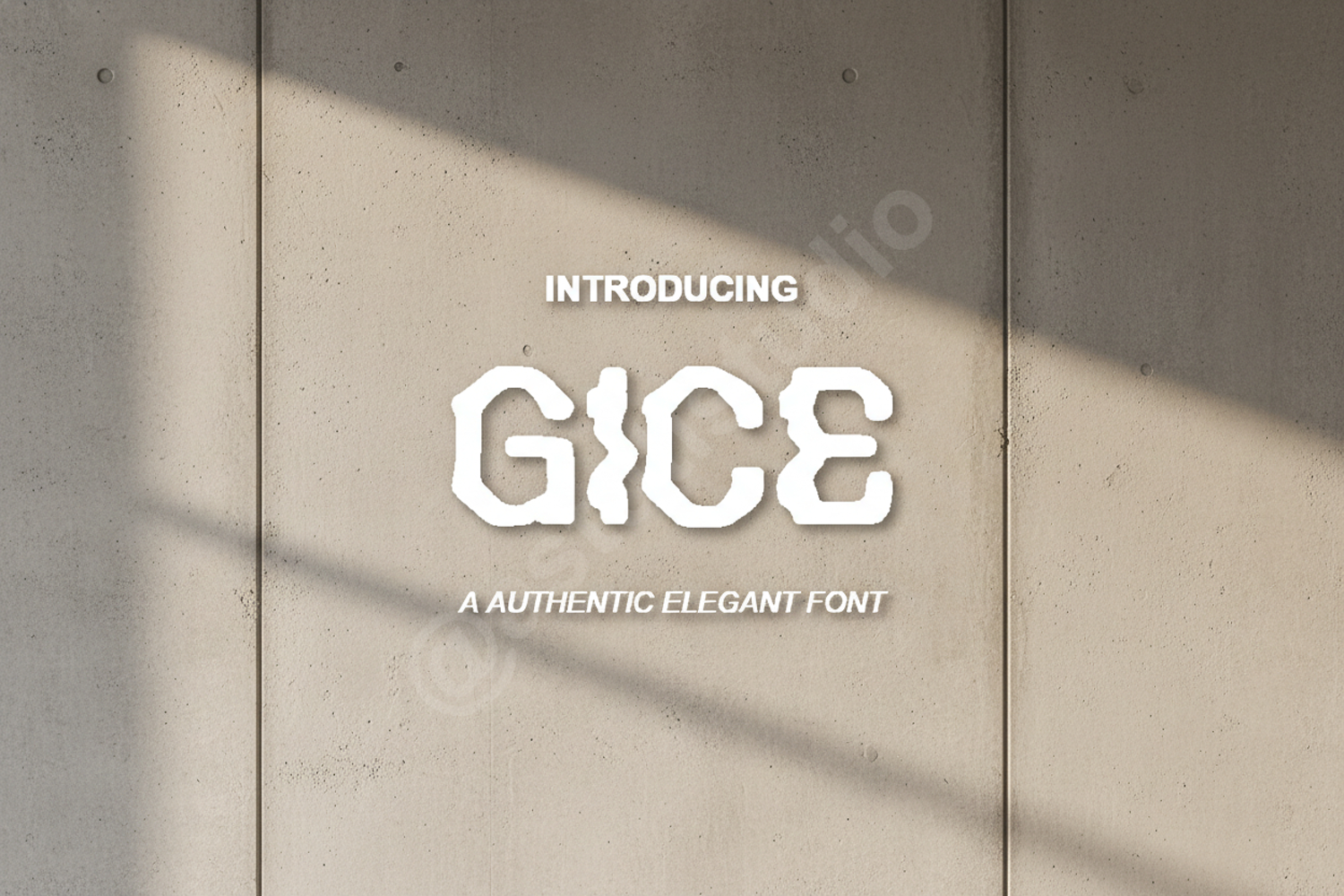
Gice - Modern Geometric Sans Serif Typeface
Gice
Elevate your creative projects with Gice, a premium geometric sans serif font designed for modern designers. Gice strikes a perfect balance between technical precision and approachable elegance. Its clean lines and balanced proportions provide a sophisticated touch that ensures your message is delivered with clarity and style.
- Branding and Corporate Identity: Build a professional image with clean, legible logos and stationary.
- Editorial Design: Ideal for high-impact headlines, subheaders, and body text in digital or print magazines.
- Web and App UI: Engineered for high legibility on screens of all sizes.
- Minimalist Posters: Perfect for layouts where the typography needs to stand out as the primary design element.
- Advertising: Deliver your marketing messages with a modern, authoritative aesthetic.